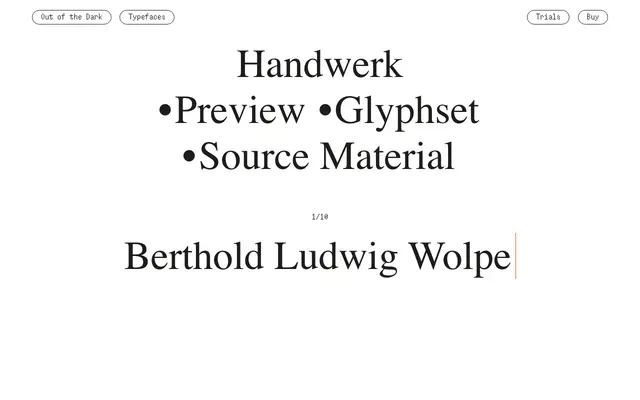
Handwerk
Out of the Dark · Berthold Ludwig Wolpe
A single-style display typeface from Out of the Dark, drawing on source material attributed to Berthold Ludwig Wolpe.
Released as a single Regular style, Handwerk takes its cues from the lettering work of Berthold Ludwig Wolpe, the German-British designer known for Albertus and his calligraphic inscriptional work. Out of the Dark have distilled this into one compact release with no weight range or italics, suited to headline and display use where handcrafted character is needed. The tight scope keeps it focused rather than versatile.
The source material reference to Berthold Ludwig Wolpe and the single-weight offering suggest a display-oriented script or lettering revival, consistent with Wolpe's known work in calligraphic and inscriptional forms.